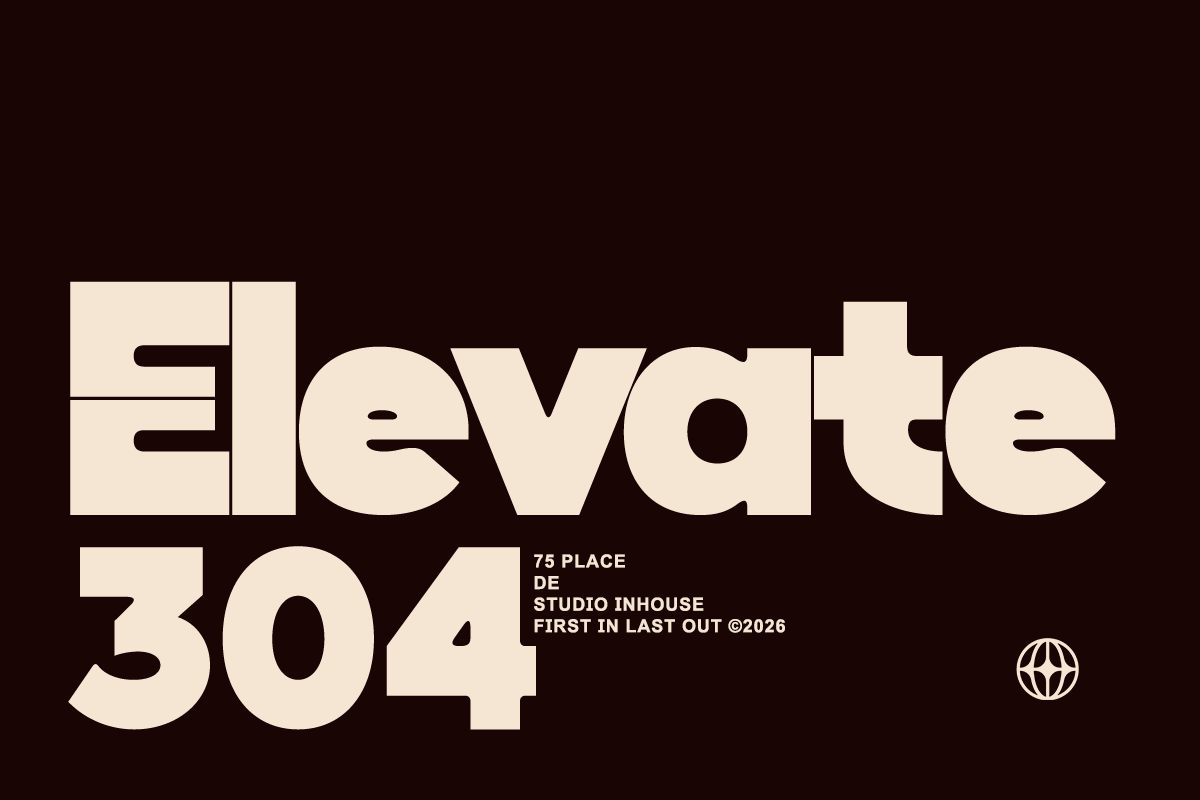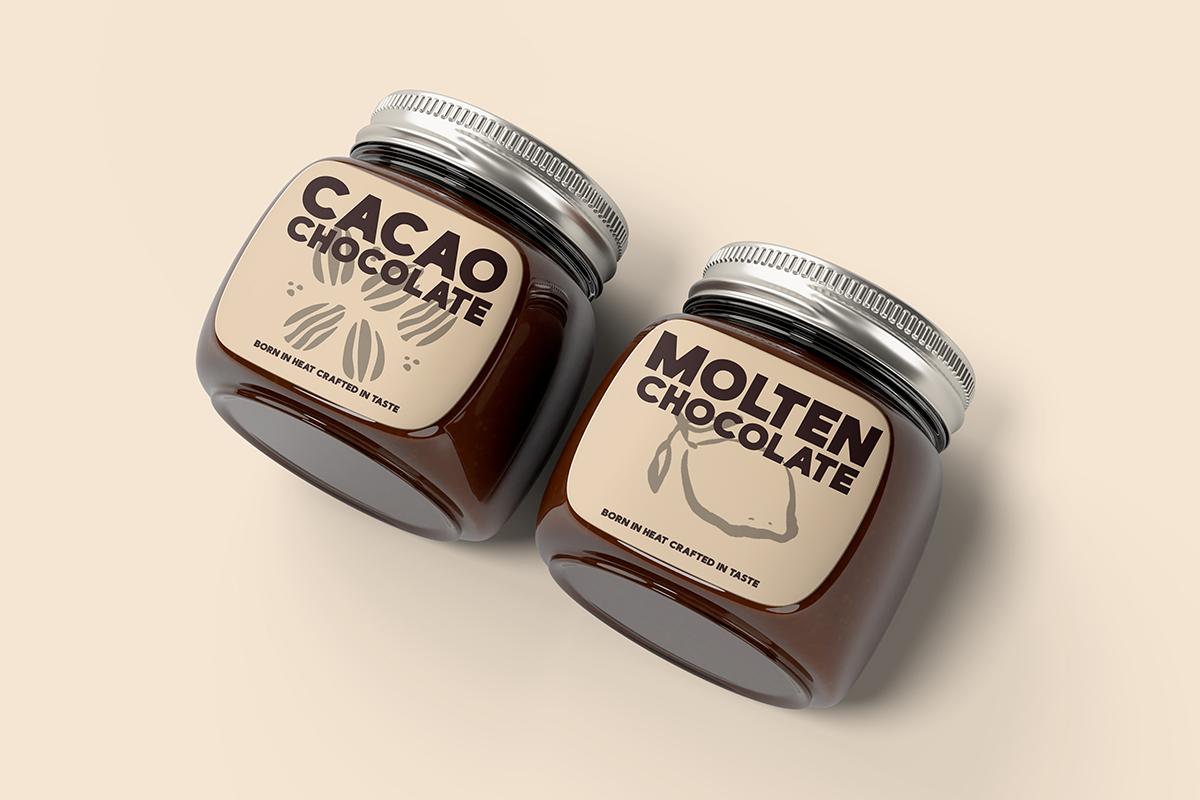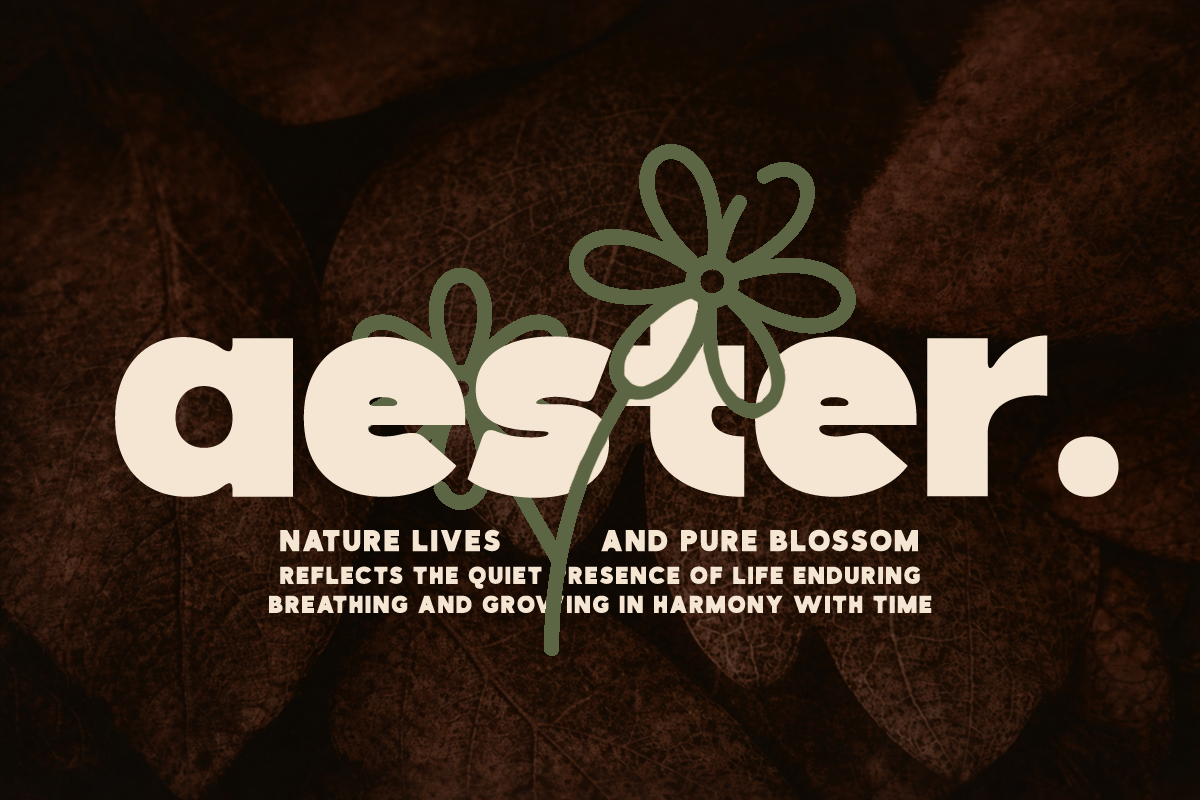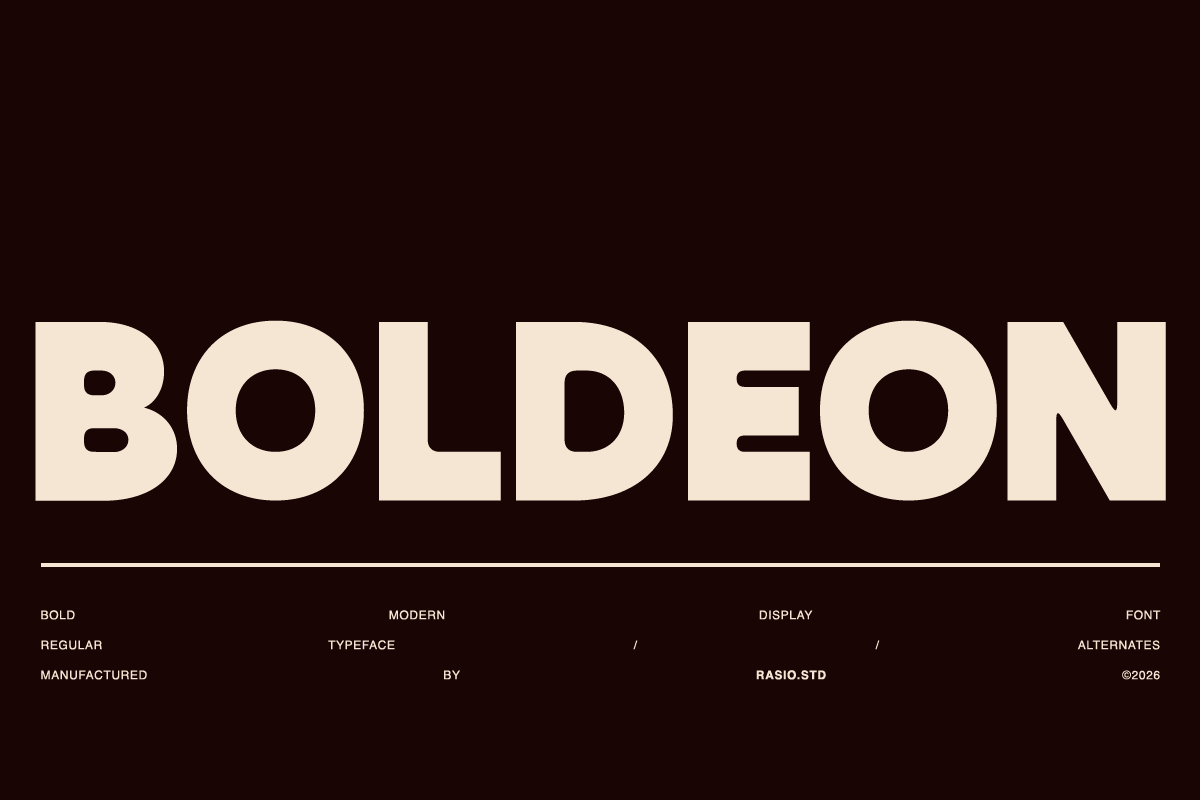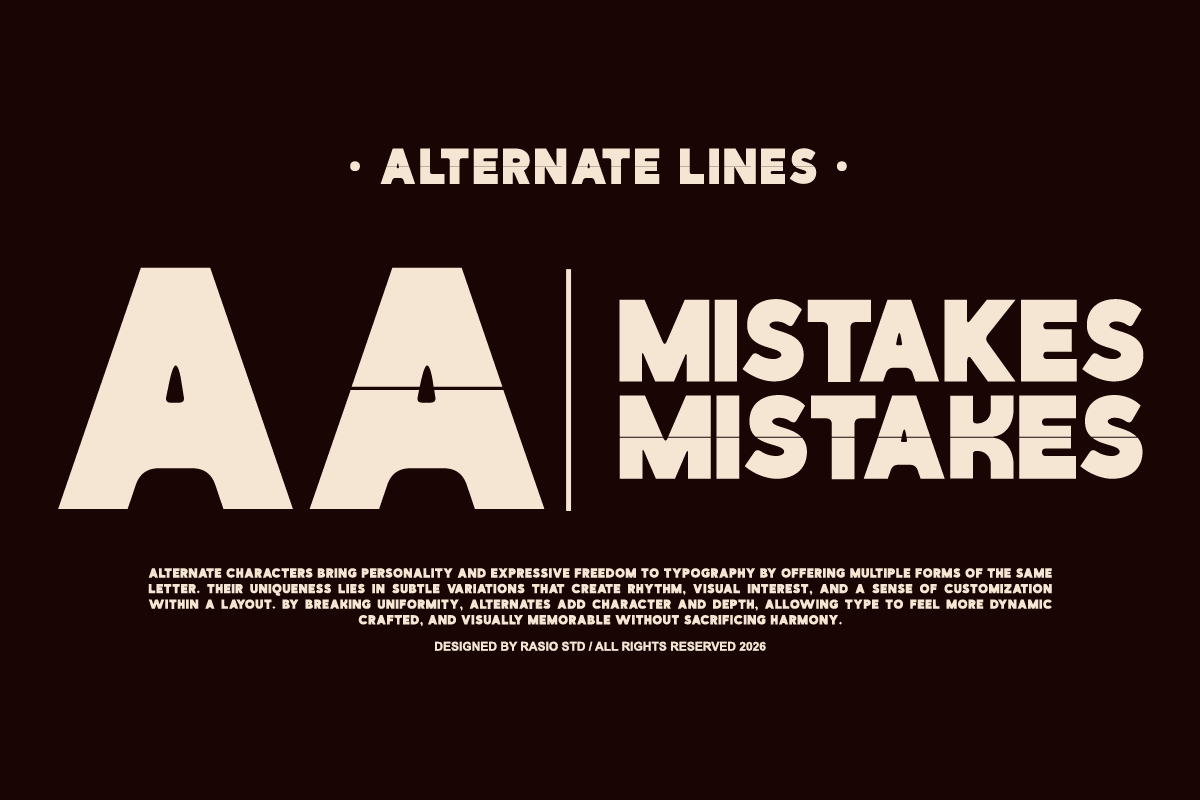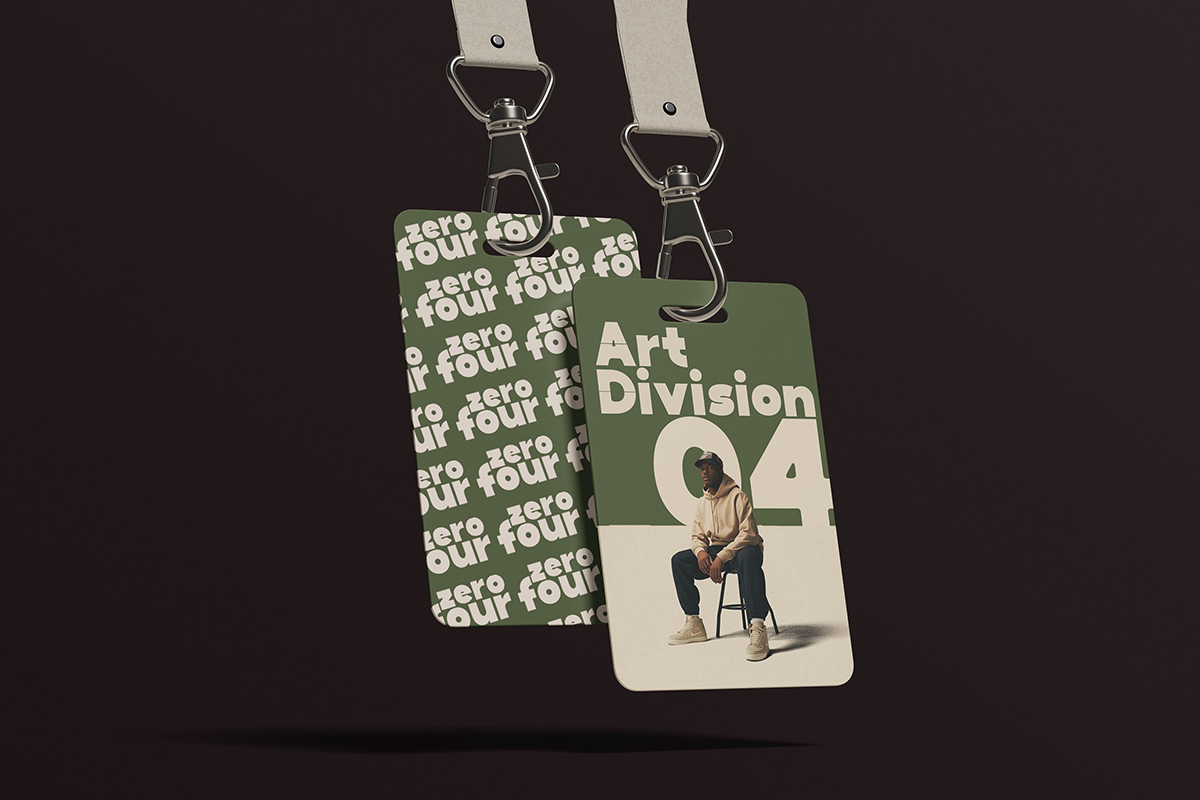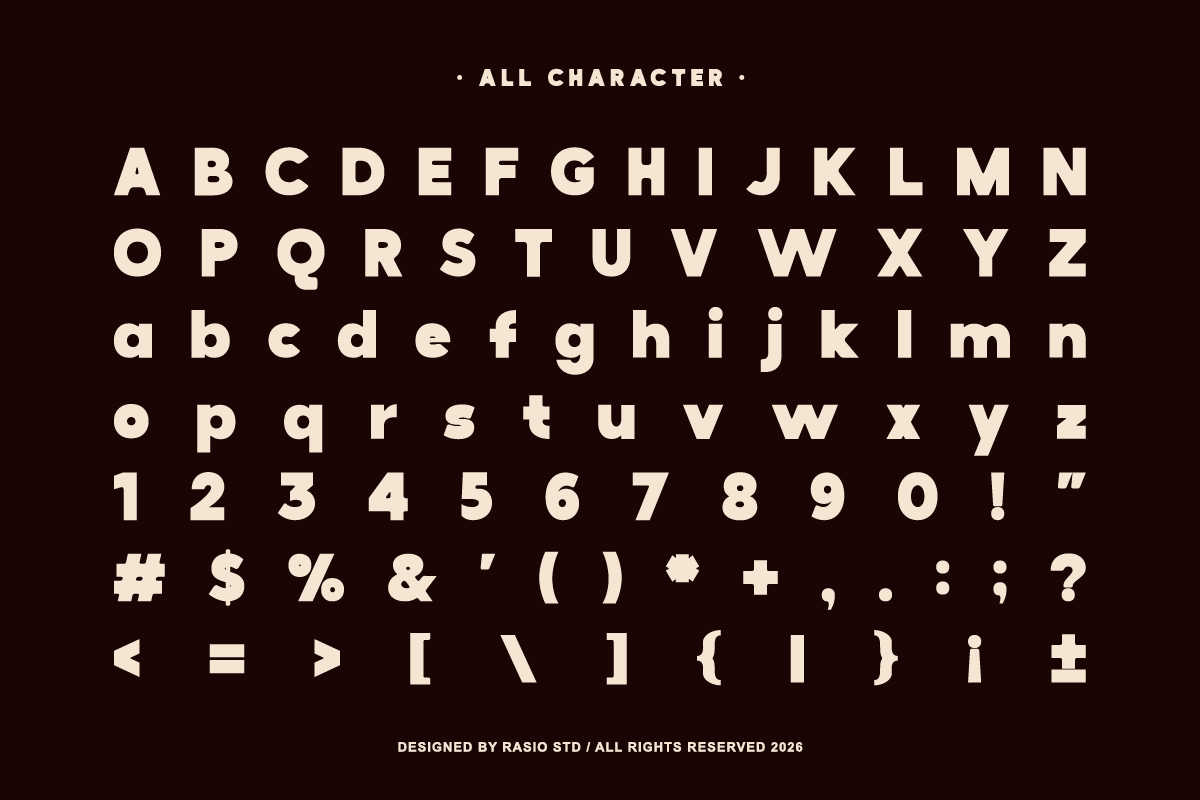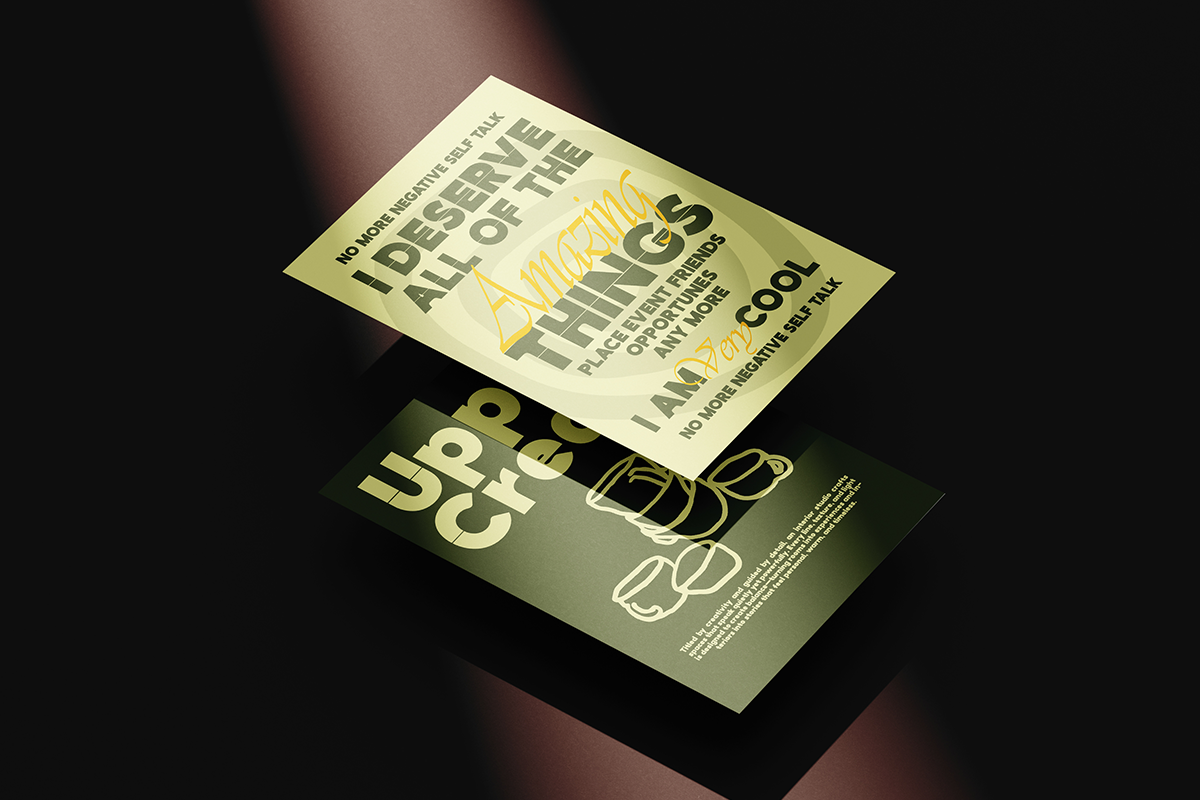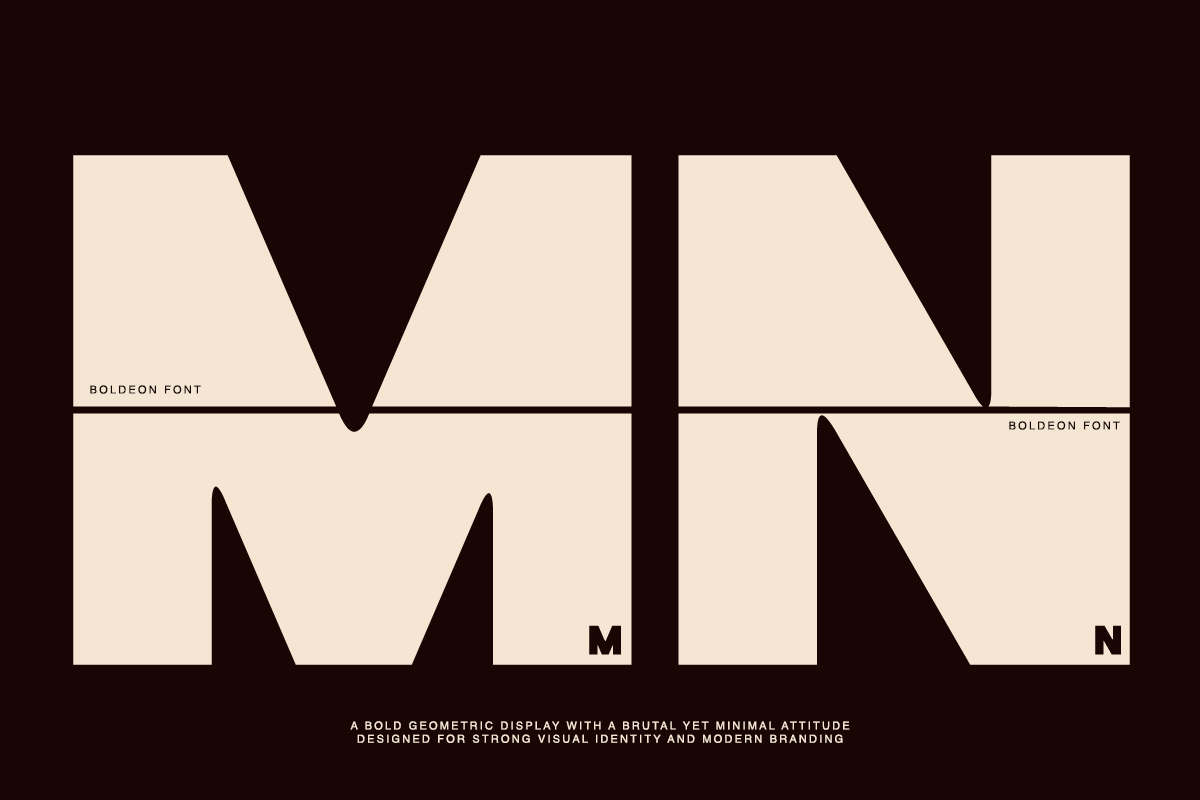
Boldeon Modern Typeface Font
Boldeon is a bold modern display sans serif font designed to deliver strong visual impact and confident typography. The letterforms feature thick strokes, geometric structure, and balanced proportions that create a powerful and contemporary appearance. This font includes uppercase letters, lowercase letters, numerals, punctuation, and stylistic alternates, offering flexible typographic options for bold design compositions.
This font is relevant for design projects that require strong and impactful typography with a modern character. It works well for posters, branding, advertising graphics, editorial headlines, sports visuals, streetwear branding, marketing materials, and social media graphics where bold typography helps capture attention and create a powerful visual statement.
- Bold geometric sans serif structure for strong visual impact
- Thick strokes with solid letterforms creating a powerful presence
- Minimalist character shapes for clean modern typography
- Balanced proportions for stable and confident headlines
- Clear spacing designed for bold display and branding layouts
- Bold brand identity and strong logo design
- Posters, headlines, and impactful advertising layouts
- Streetwear branding and modern fashion graphics
- Sports graphics and energetic promotional visuals
- Social media campaigns and attention-grabbing marketing designs
Supports numerals, punctuation, and extensive symbol set
Boldeon bring bold modern energy to your design